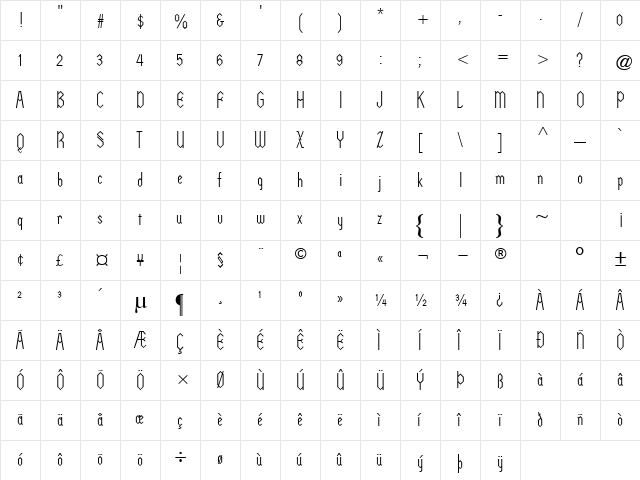
Basque Regular Font Preview
Basque Regular
Design Context for Basque Typeface
Basque takes a measured approach to typography — its balanced proportions and neutral character make it a reliable workhorse for both digital and print work.